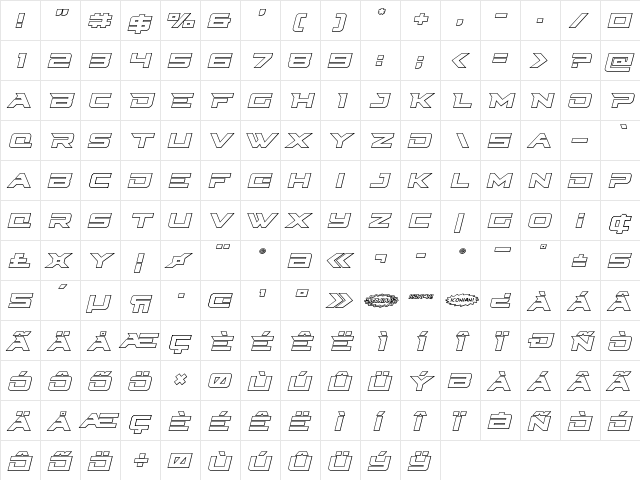
Cyberdyne Outline Italic Font Preview
Design Context for Cyberdyne Outline Italic Typeface
Cyberdyne Outline Italic has a distinctly futuristic character, with geometric precision and clean angles that feel at home in technology, gaming, and sci-fi contexts. The dynamic lean of this cut emphasises speed and emphasis in any layout.